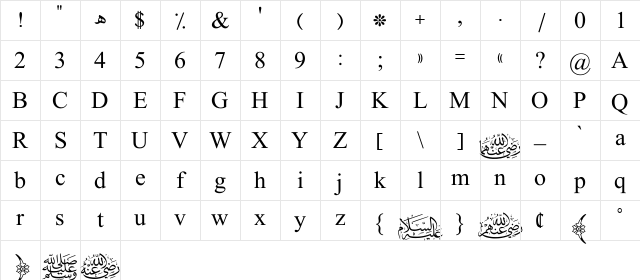
AAAGoldenLotus Stg1_Ver1 Regular
Design Context for AAAGoldenLotus Stg1_Ver1
AAAGoldenLotus Stg1_Ver1 is a composed and adaptable typeface that performs quietly and consistently across a wide range of design contexts.